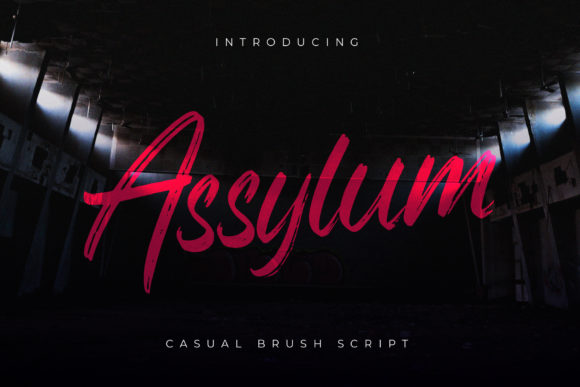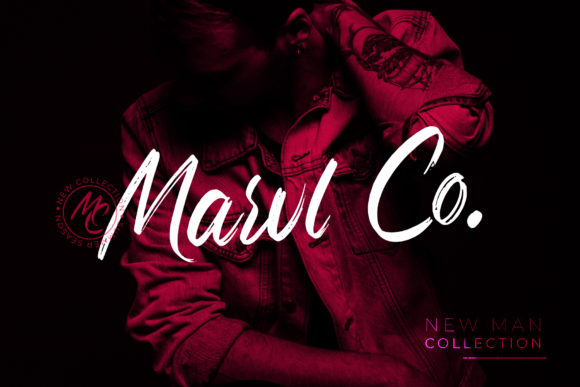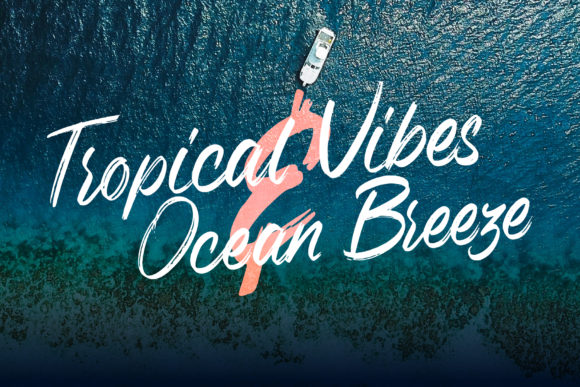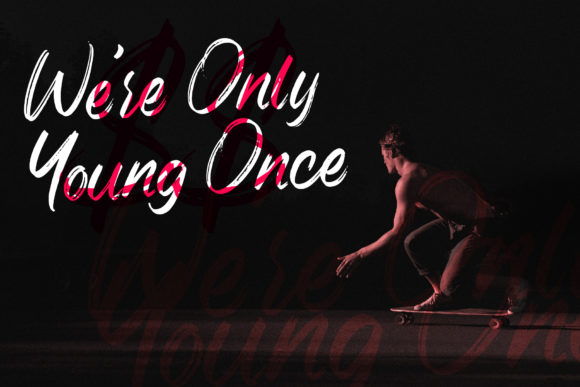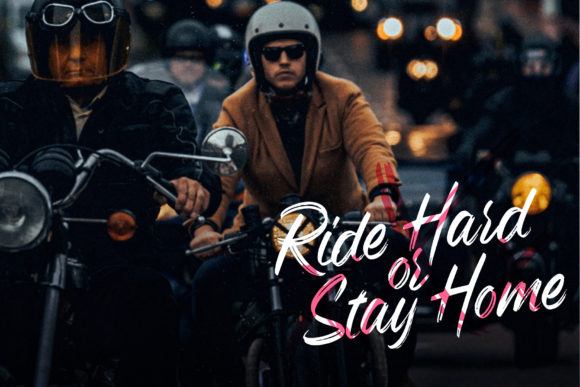
Assylum Font
About Assylum Font
Assylum is a timeless and flowing handwritten font. Created with the help of an outstanding brush pen, this font was masterfully designed to become a true favorite. Add it to your creative ideas and notice how it makes them stand out!